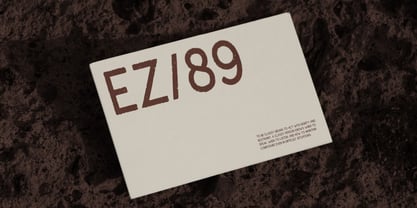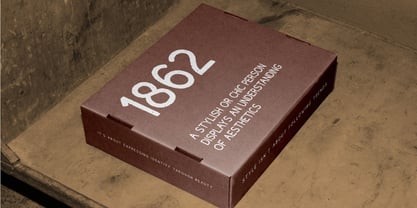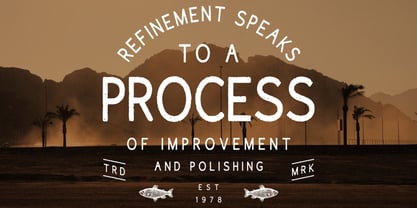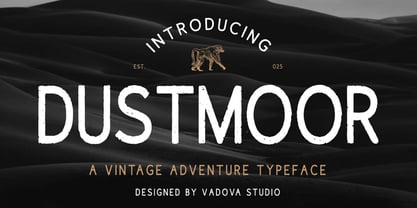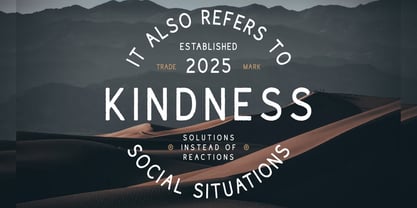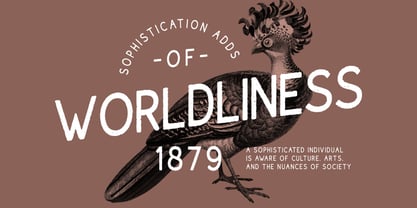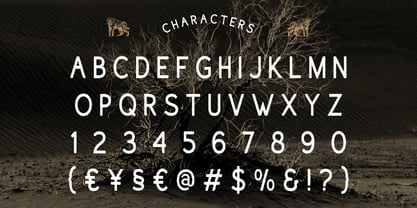
Dustmoor
Dustmoor is a rugged and charismatic serif font designed to evoke the spirit of untamed adventures. It blends vintage charm with bold letterforms, making it ideal for storytelling, branding, and thematic visuals. The energy of this typeface leans toward nostalgia, yet it’s sharp enough to hold modern relevance.
Crafted with a clear vintage undertone, Dustmoor is perfect for use in book covers, Instagram travel quote designs, adventure branding, historical packaging, or vintage-style logos. Its handcrafted feel is embedded in each glyph—featuring rounded terminals with just enough edge to maintain clarity in bold displays.
The serif structure creates an elegant foundation, while the tall x-height and spacious width make it legible and expressive. Whether used in headlines, editorial layouts, or print design, Dustmoor adds character and story to every letter it shapes.
Main Features
* Uppercase & Lowercase
* Ligatures & Alternate
* Numeral & Punctuations
* Multilingual Support
**Suitable For**: poster design, branding, signage, social media visuals, book covers, packaging, blog headers, travel quotes, editorial spreads, storytelling visuals, merchandise labels, outdoor lifestyle brands, vintage campaigns, rustic invitations, and creative presentations.